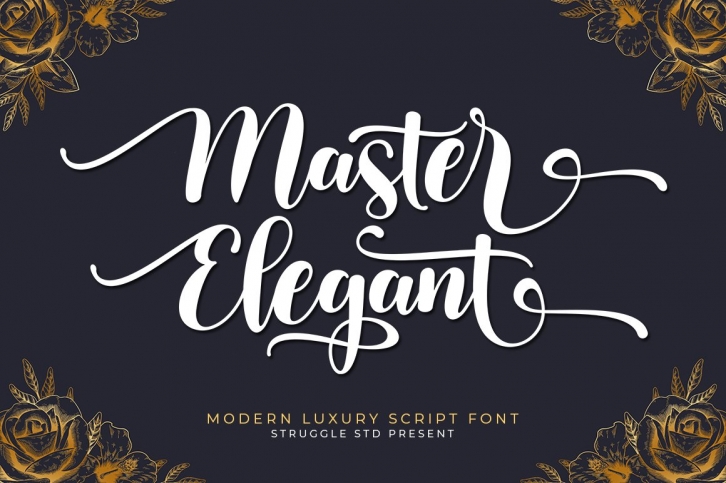
Master Elegant is a gorgeous font that was realeased on April 25, 2021. The font can be used in many style contexts and design environments. Perfect for invitations, magazines, websites, logos, and more! It was designed by studio Struggle and the file size is 14.61 MB. Thanks for checking out this font!